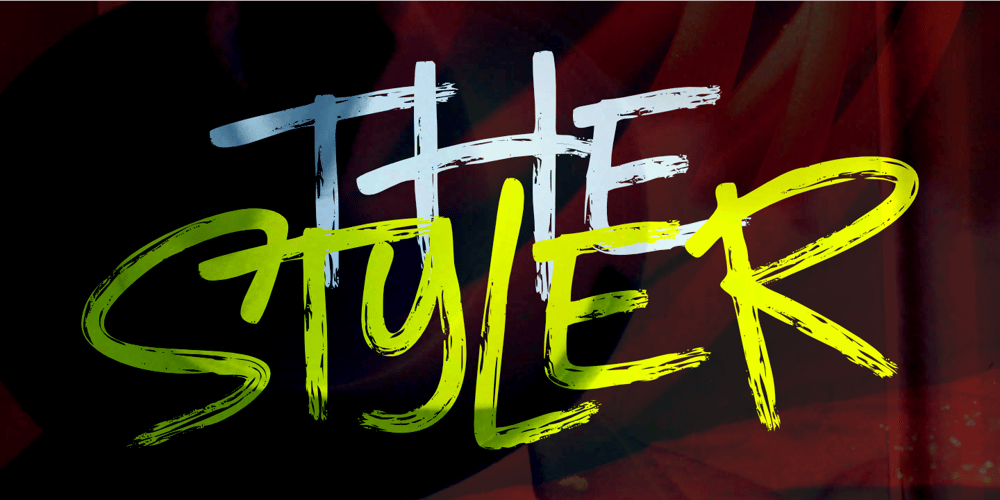
Styler
Styler font
Styler Font Family was designed by Aldy Sidik and published by Epiclinez. Styler contains 1 styles and family package options. Styler Font is a dynamic and modern brush-style typeface exuding energy and creativity. Its hand-drawn aesthetic and bold strokes make it ideal for designs that demand attention and express individuality. The irregular brush textures add a sense of authenticity, making it perfect for creative projects that call for a stylish, yet inviting, vibe.Styler Font works exceptionally well in designs for fashion brands, streetwear, music album covers, movie promotions, and event posters. Its bold personality enhances compositions with rebellion, creativity, and innovation themes.Styler Font features : Standard Latin Numbers, symbols, and punctuations Multilingual Support. Fully accessible without additional design software Simple Installations Works on PC & Mac Thank You